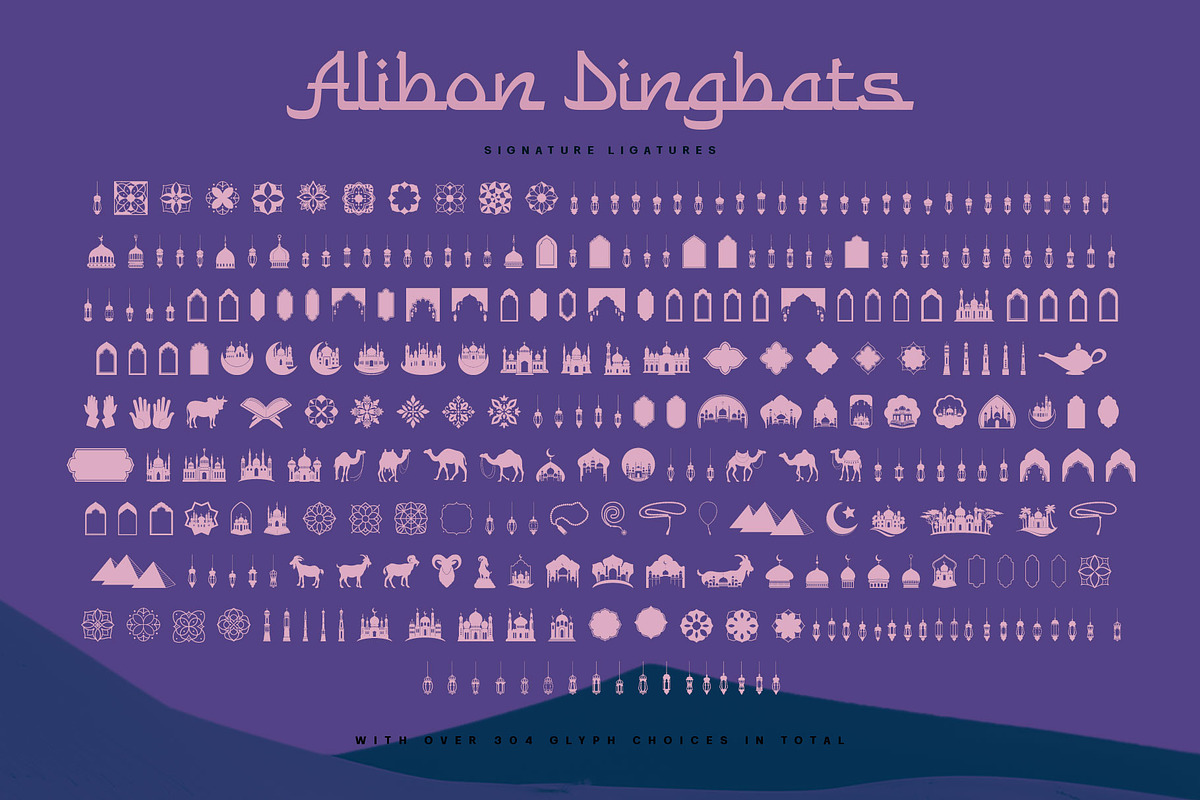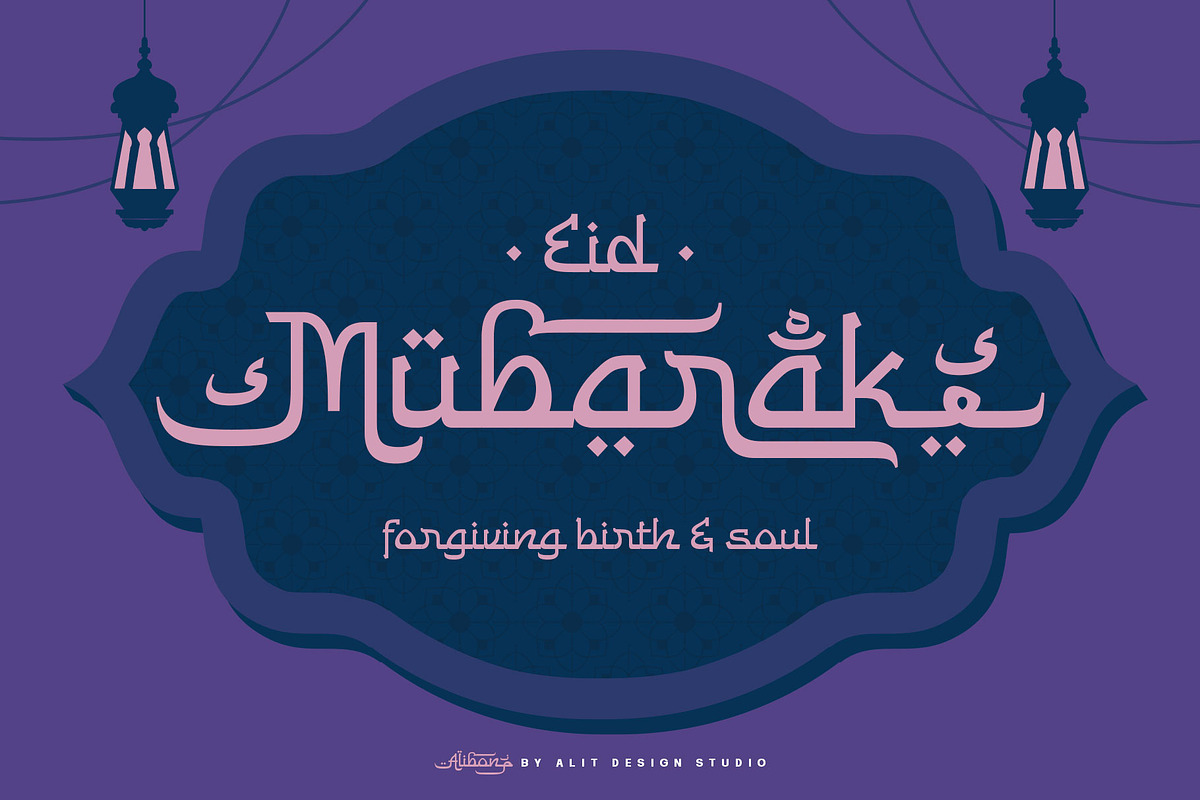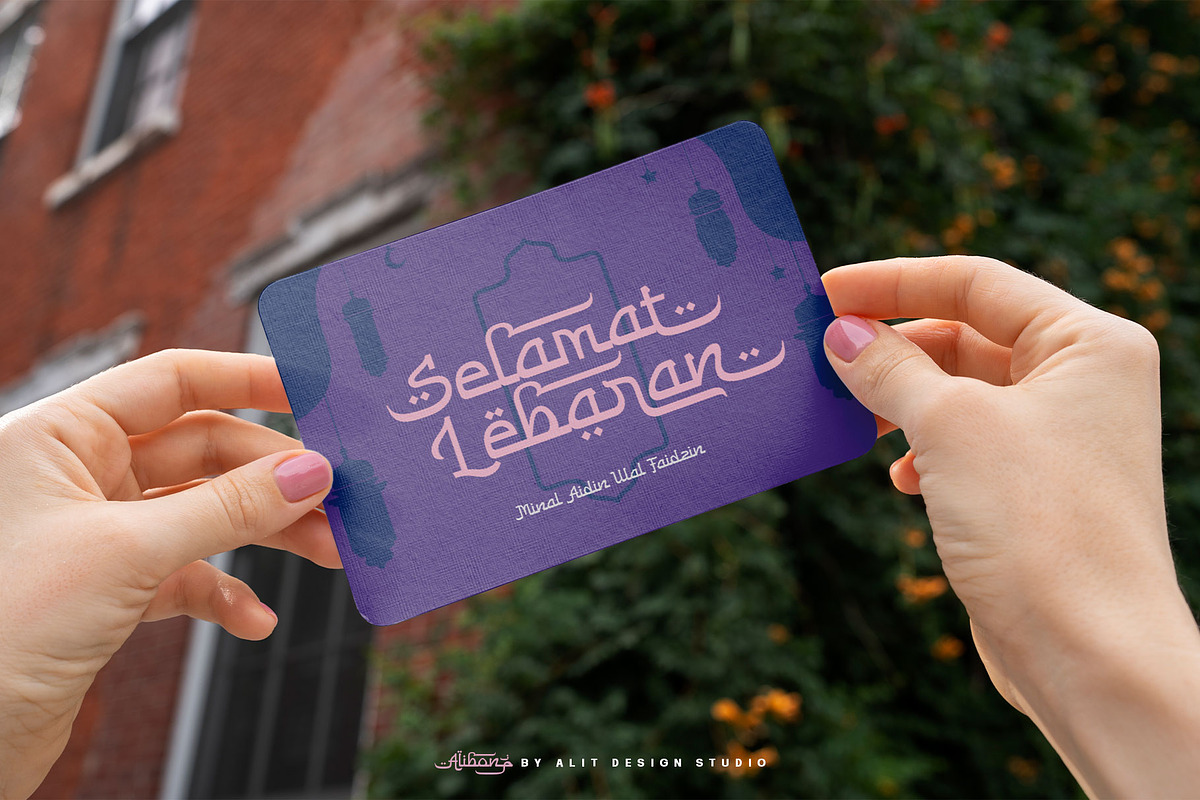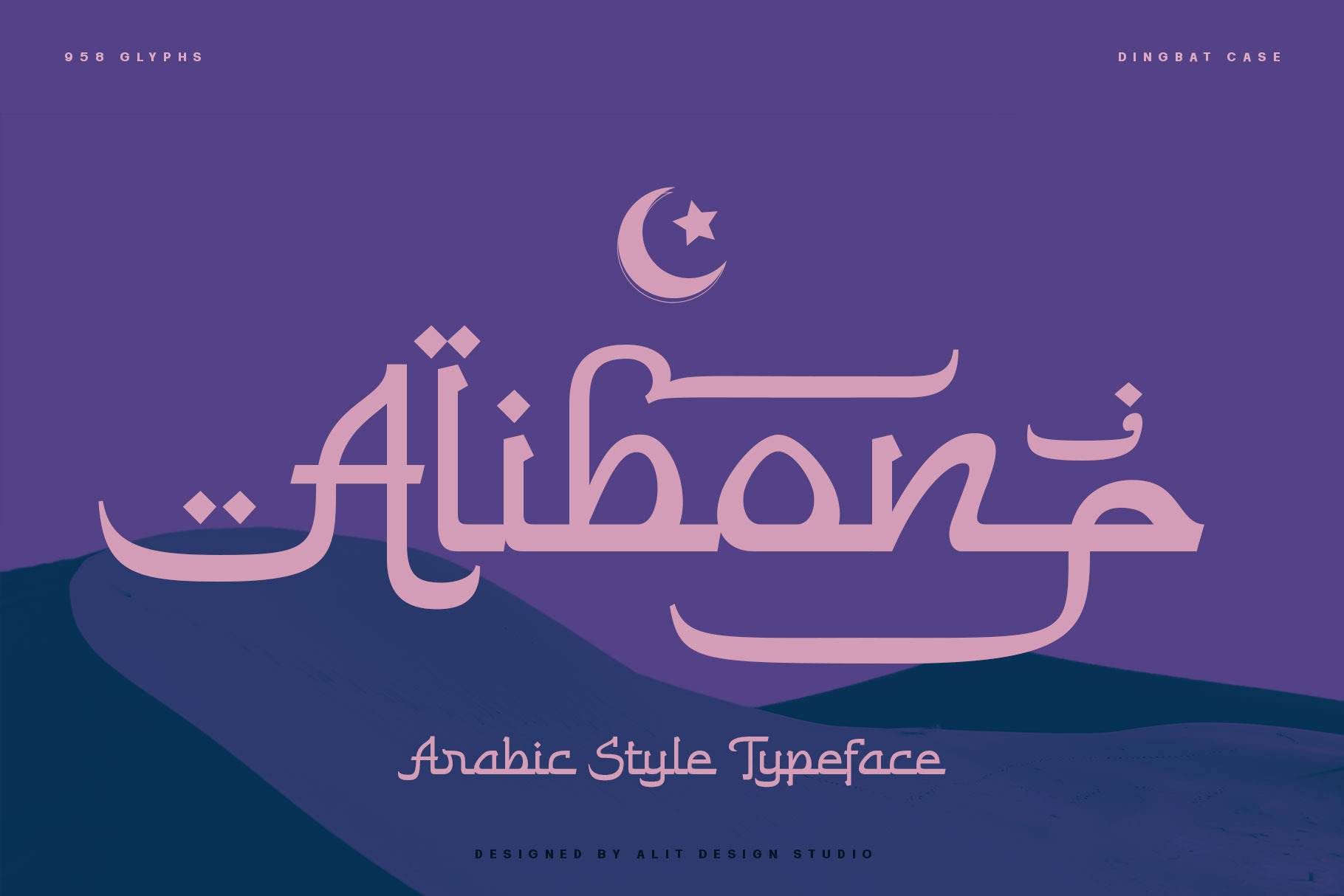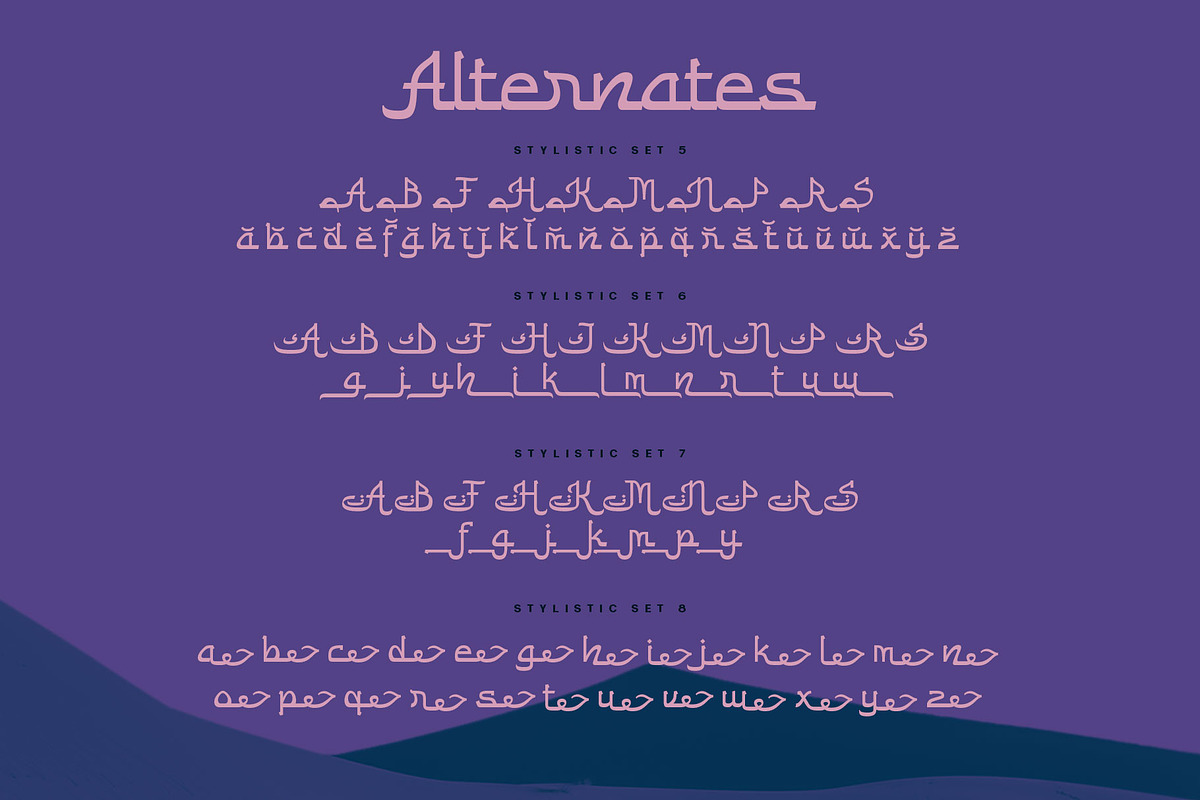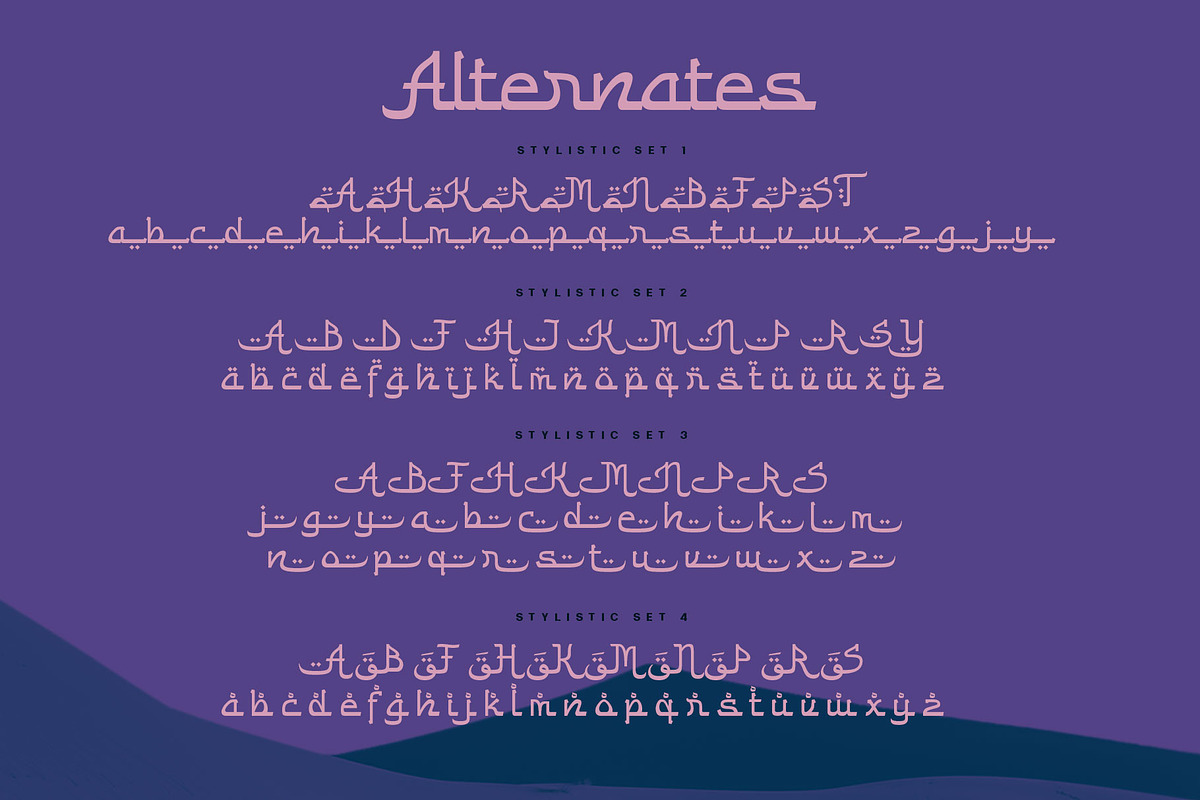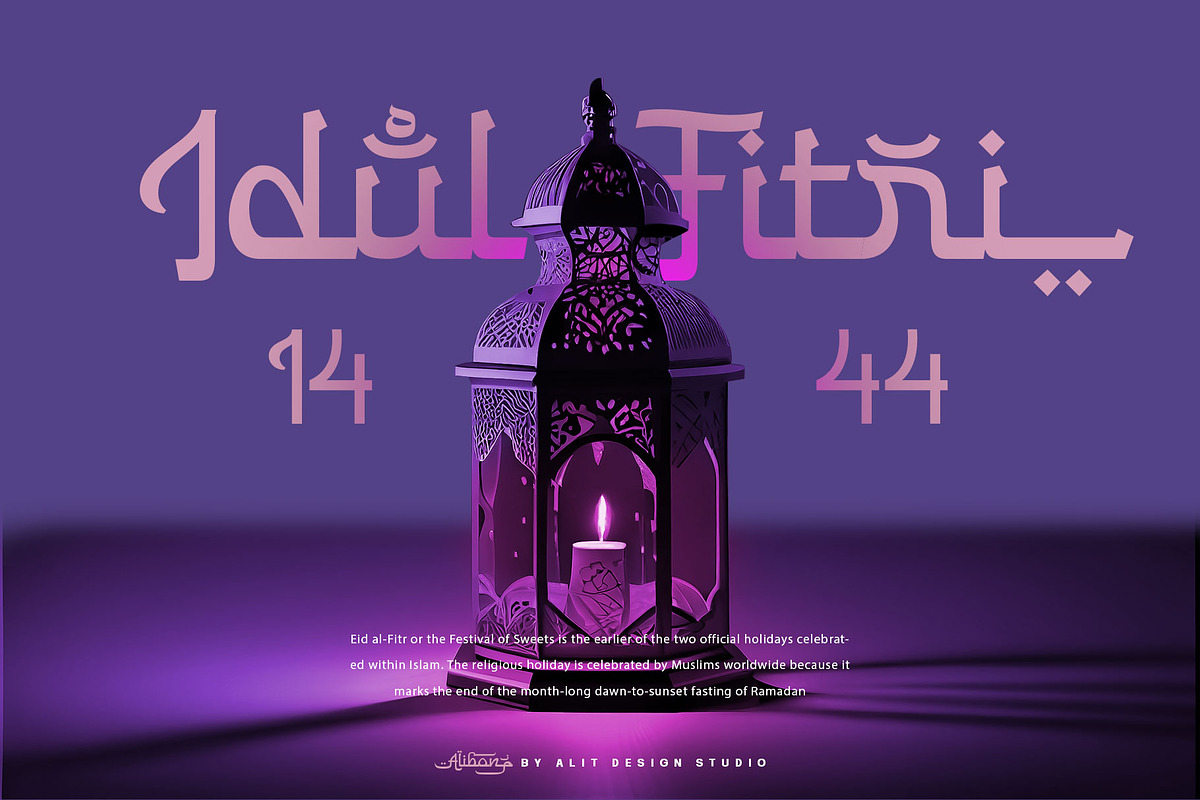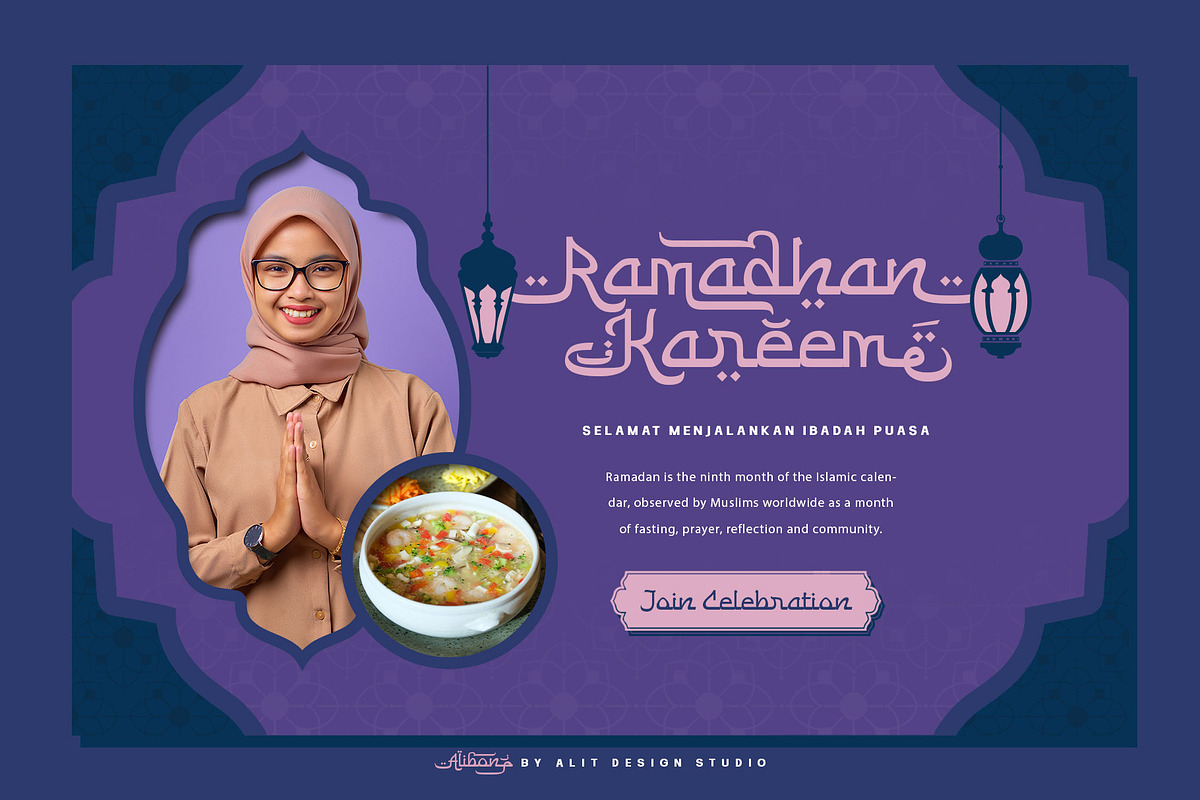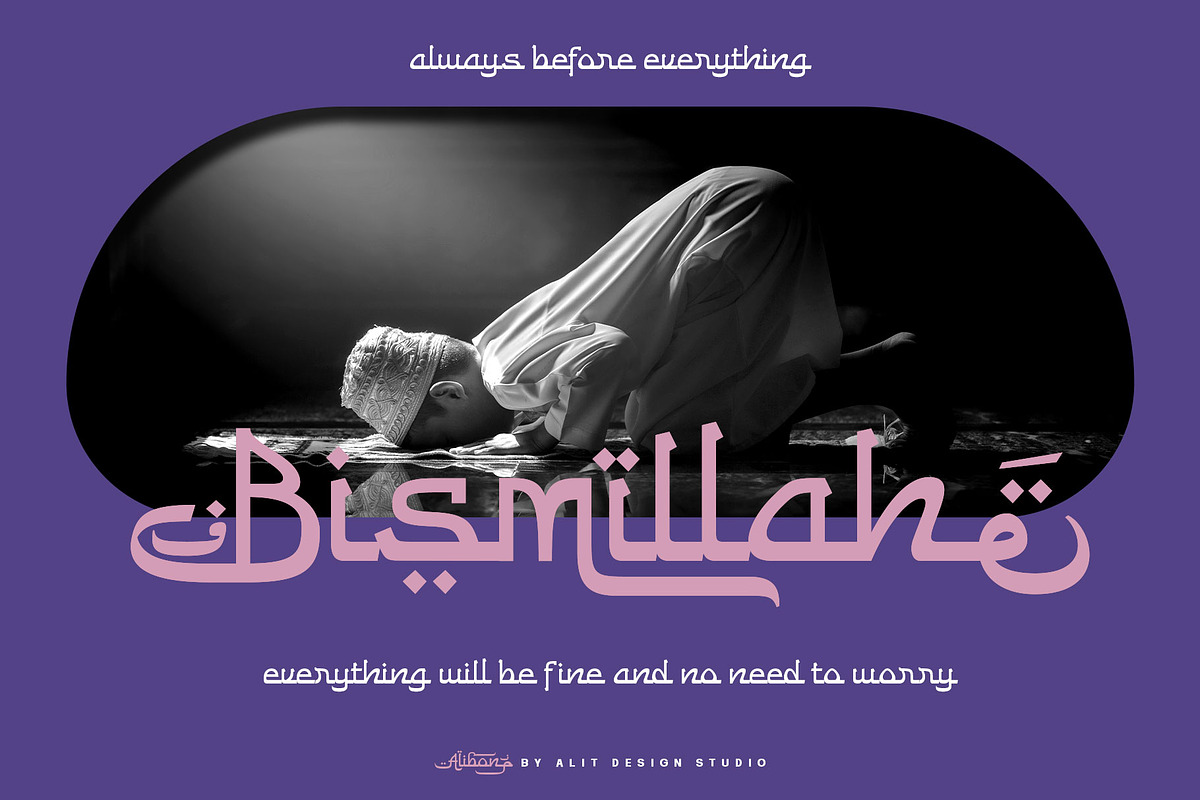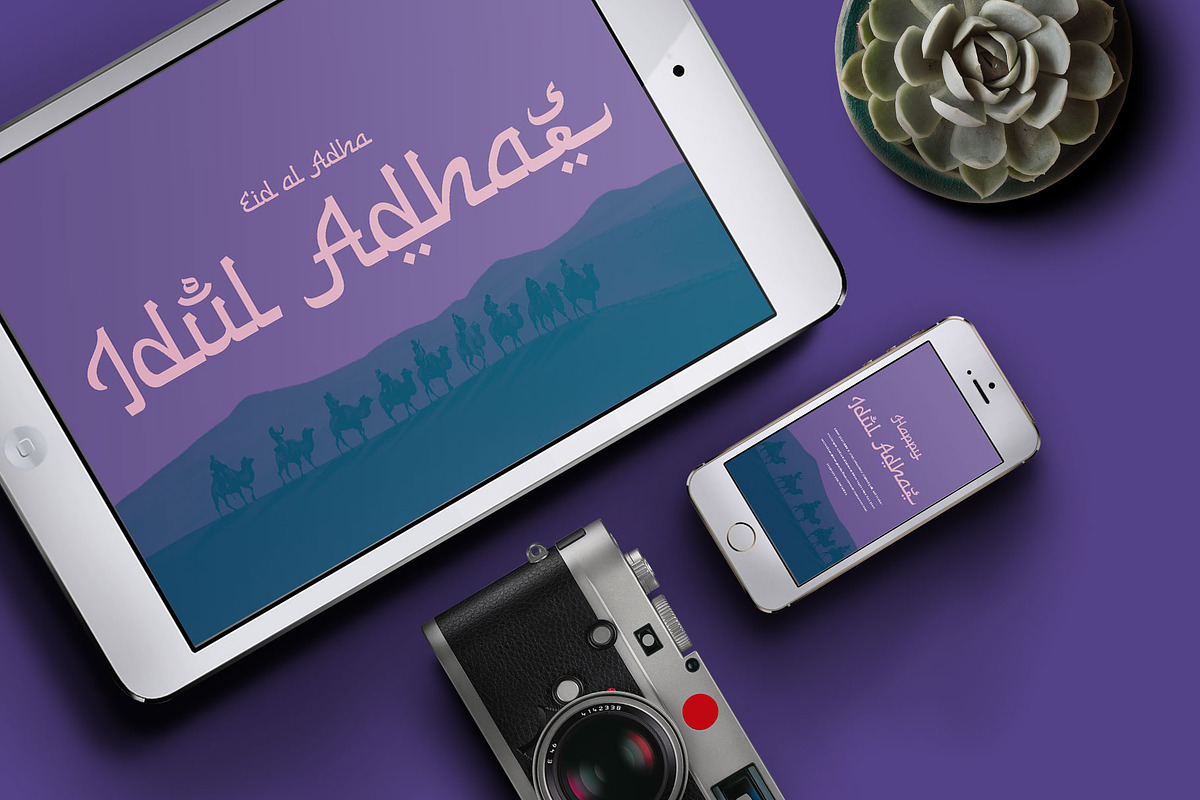
Alibon Arabic Typeface
Presenting 🕌Alibon Arabic Typeface🕌 by alitdesign.
Alibon Arabic Typeface is a stunning font product that features a religious and Islamic style, making it an ideal choice for Ramadan promotions and other Islamic design projects. The font's carefully crafted design is sure to impress your audience and help your designs stand out.
One of the standout features of Alibon Arabic Typeface is its support for PUA Unicode, which ensures that users can easily access all of the font's characters without any issues. The font also supports multilingual characters, making it perfect for use in various languages other than Arabic.
With 958 glyphs characters, Alibon Arabic Typeface offers a vast range of options, allowing users to create unique and eye-catching designs. The font's characters are well-crafted and easily readable, making it an excellent choice for any design that requires an Arabic font.
As a bonus, Alibon Arabic Typeface comes with a Bahlull Dingbats font that includes a collection of 304 Islamic symbols and ornaments. These extra glyphs can be used to add a personal touch to your designs and enhance their visual appeal.
In summary, Alibon Arabic Typeface is a versatile and elegant font product that is perfect for Ramadan promotions and other Islamic design projects. With PUA Unicode support, multilingual characters, 958 glyphs characters, and a bonus Bahlull Dingbats font with 304 characters, this product offers everything you need to create stunning designs that resonate with your audience.